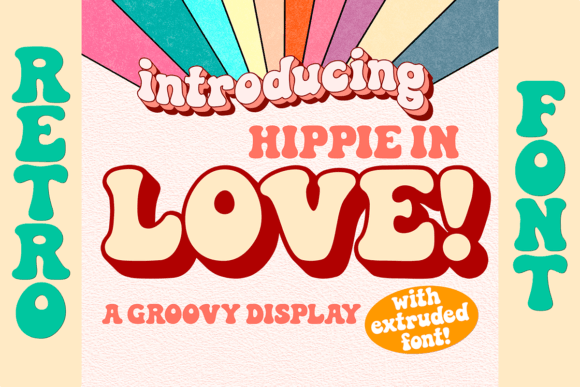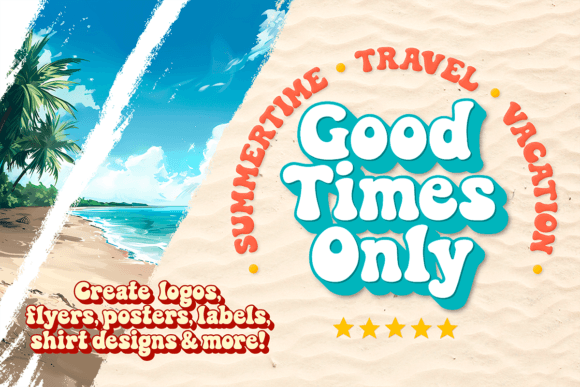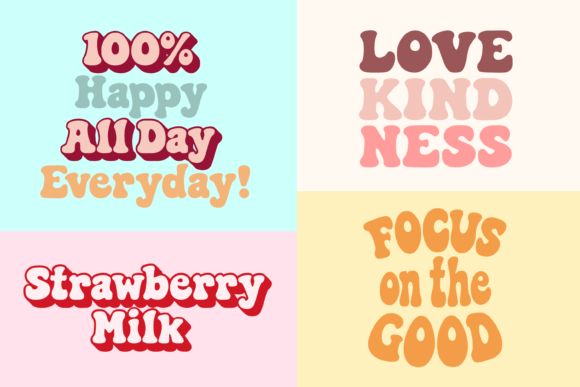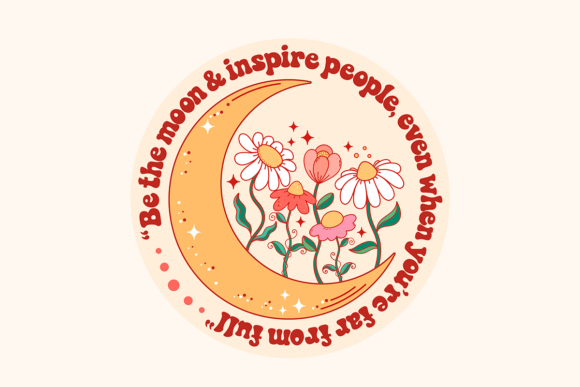
Hippie In Love Font: Groovy Retro Display Font for Funky Designs
About the Hippie in Love Font
Welcome to the world of Hippie in Love Font, a typeface that will inspire your next great project. Step back in time with this retro font! Perfect for adding a touch of vintage flair to your projects, this font is sure to transport you straight to the ’70s. Whether you’re working on a groovy poster, invitation, or any other creative endeavor, this font will bring a cool and laid-back vibe to your work. This font captures the spirit of the 60s and 70s with its funky shapes and psychedelic vibes.
Hippie in Love excels in headline use, short taglines, and branding applications where a playful, retro aesthetic is desired. It works wonderfully for posters, album art, and packaging designs evocative of the 1960s and 70s. However, its distinctive character makes it less suitable for body text or UI elements requiring high readability.
The font’s core personality is undeniably bold and playful, yet retains a friendly approachability. To complement this, pair it with a clean sans-serif like Open Sans for body copy or a more geometric sans-serif for a modern contrast. A simple serif like Merriweather could also add a touch of sophistication.
Avoid using it with overly ornate scripts, as this could clash with its retro vibe. Consider using it sparingly as an accent font, allowing its unique qualities to shine without overwhelming the design.
Hippie in Love Font Usage Examples
Hippie in Love Font Example